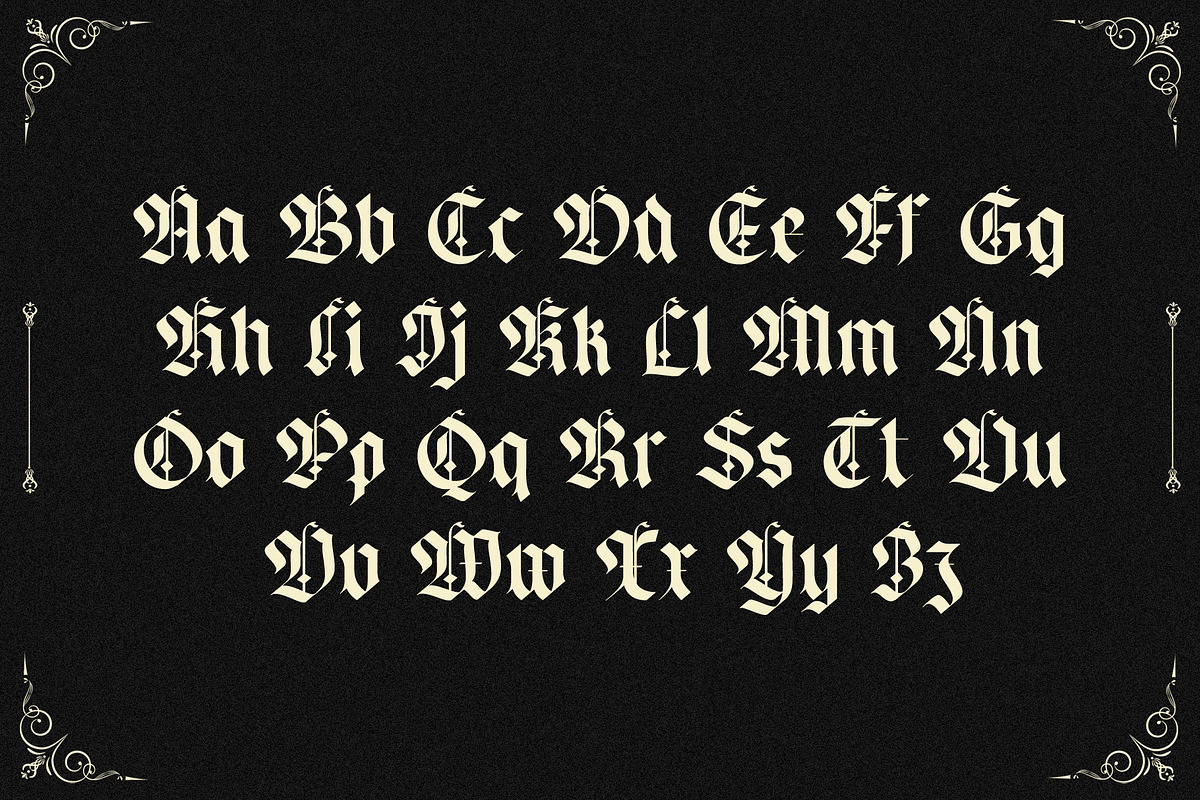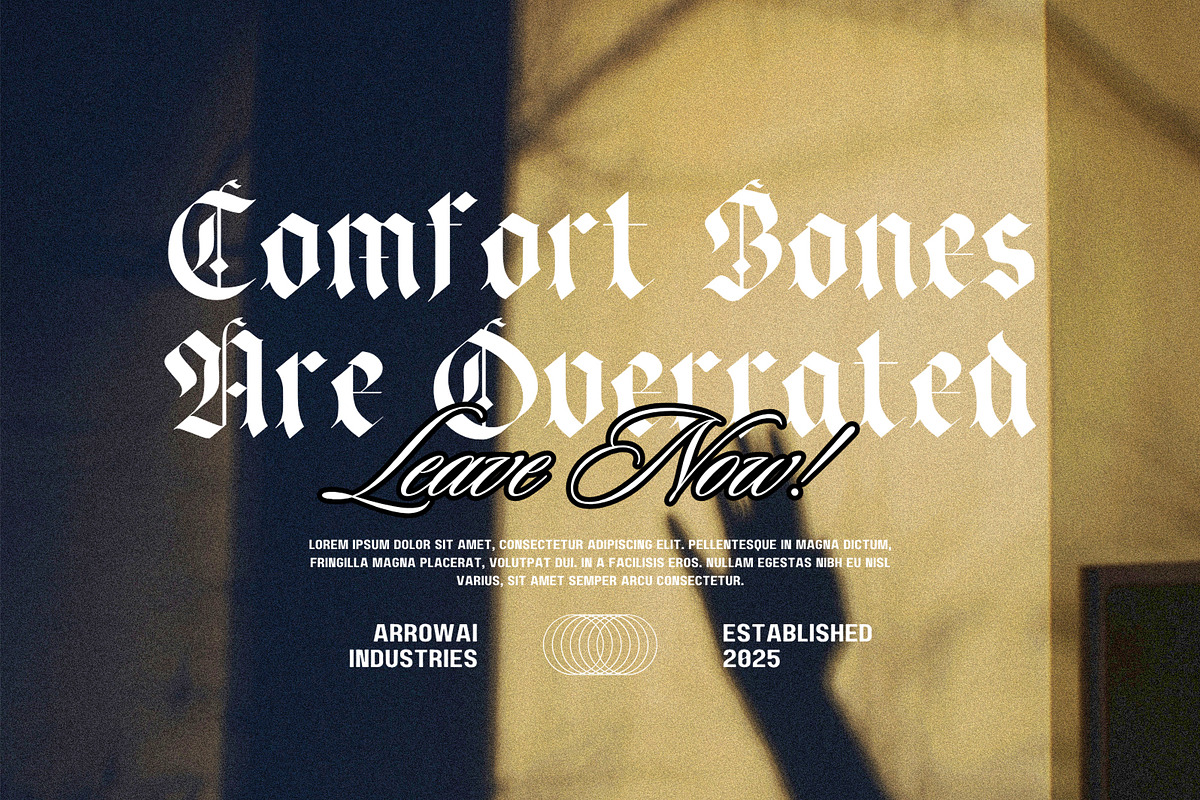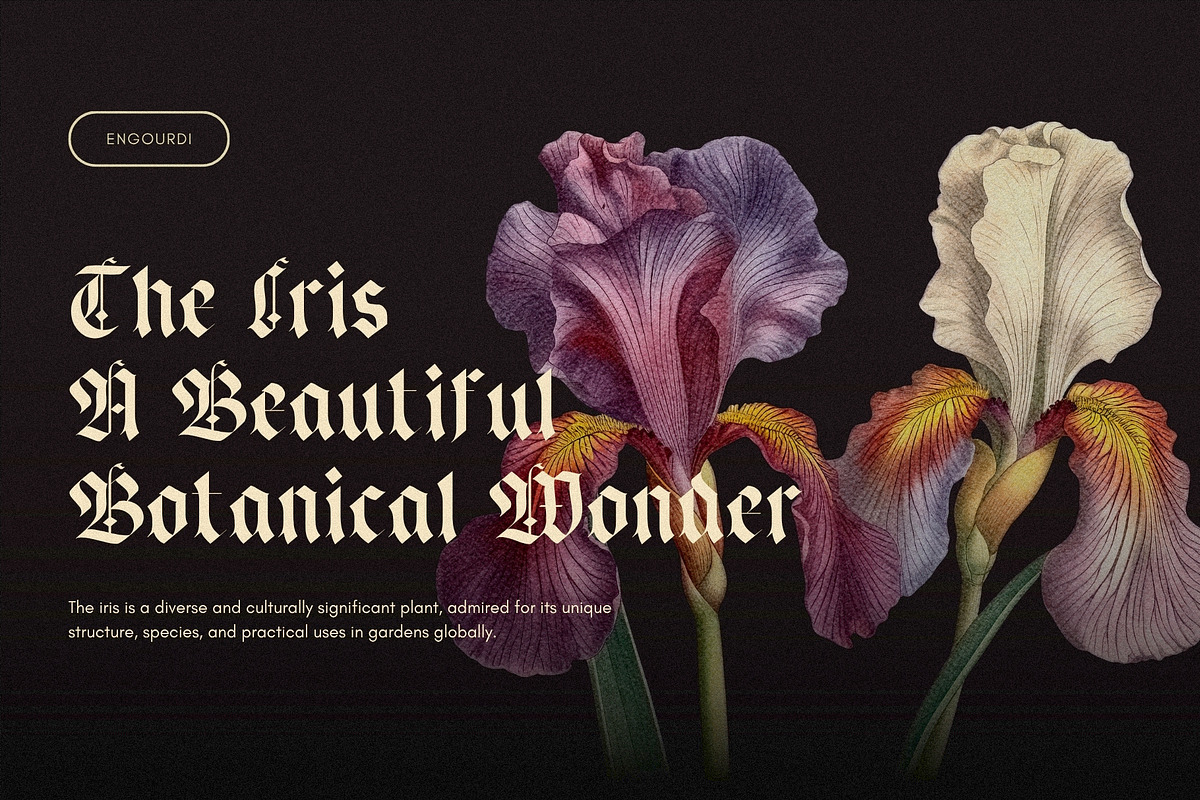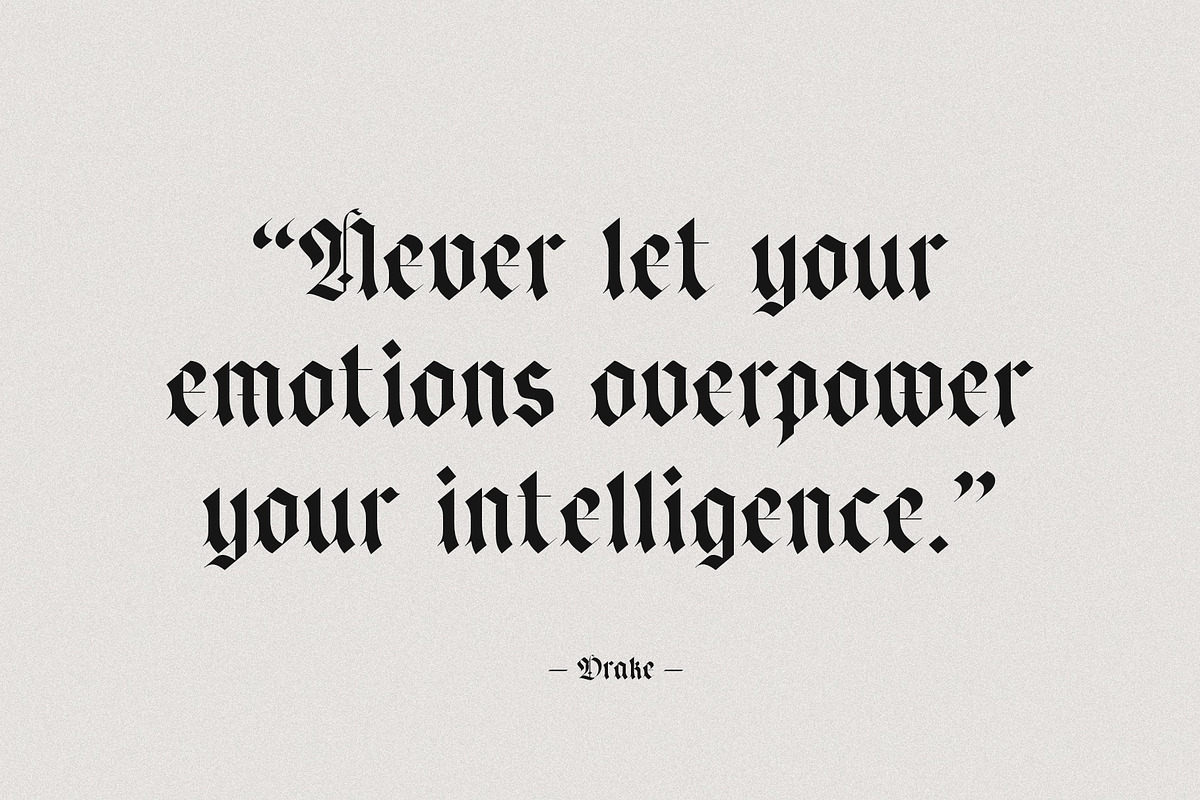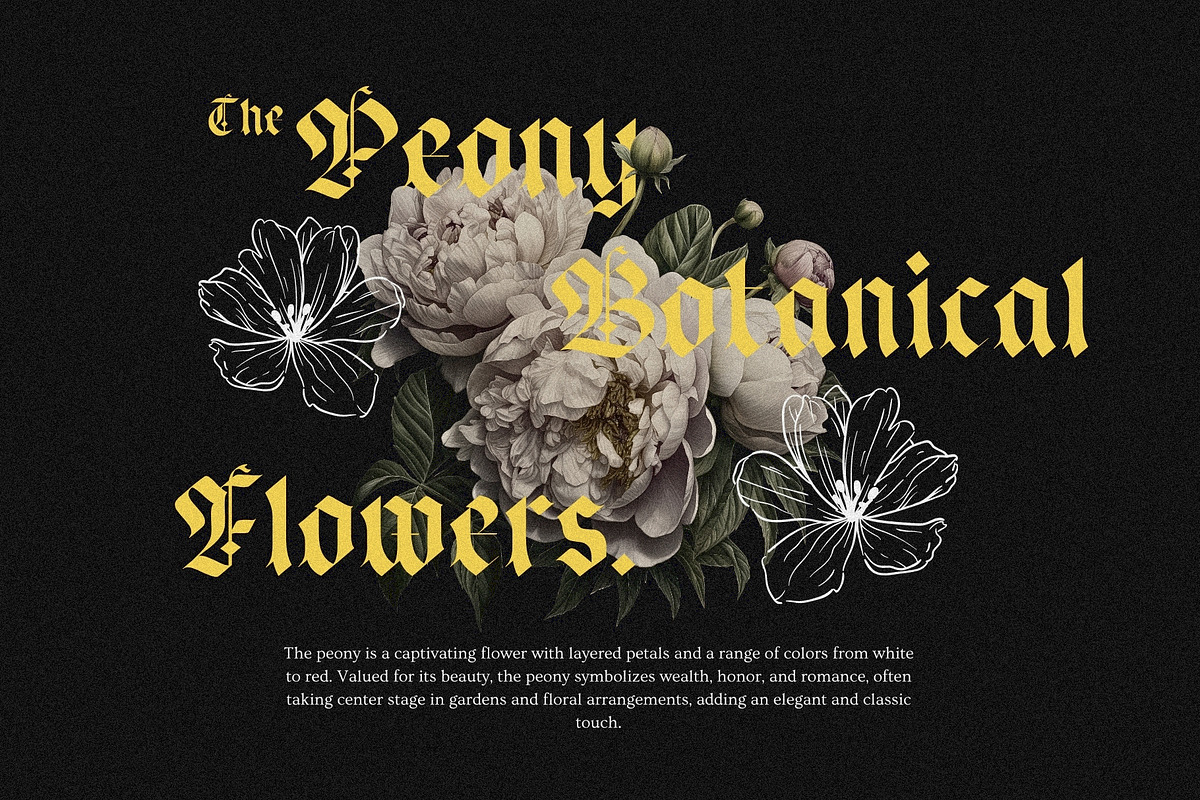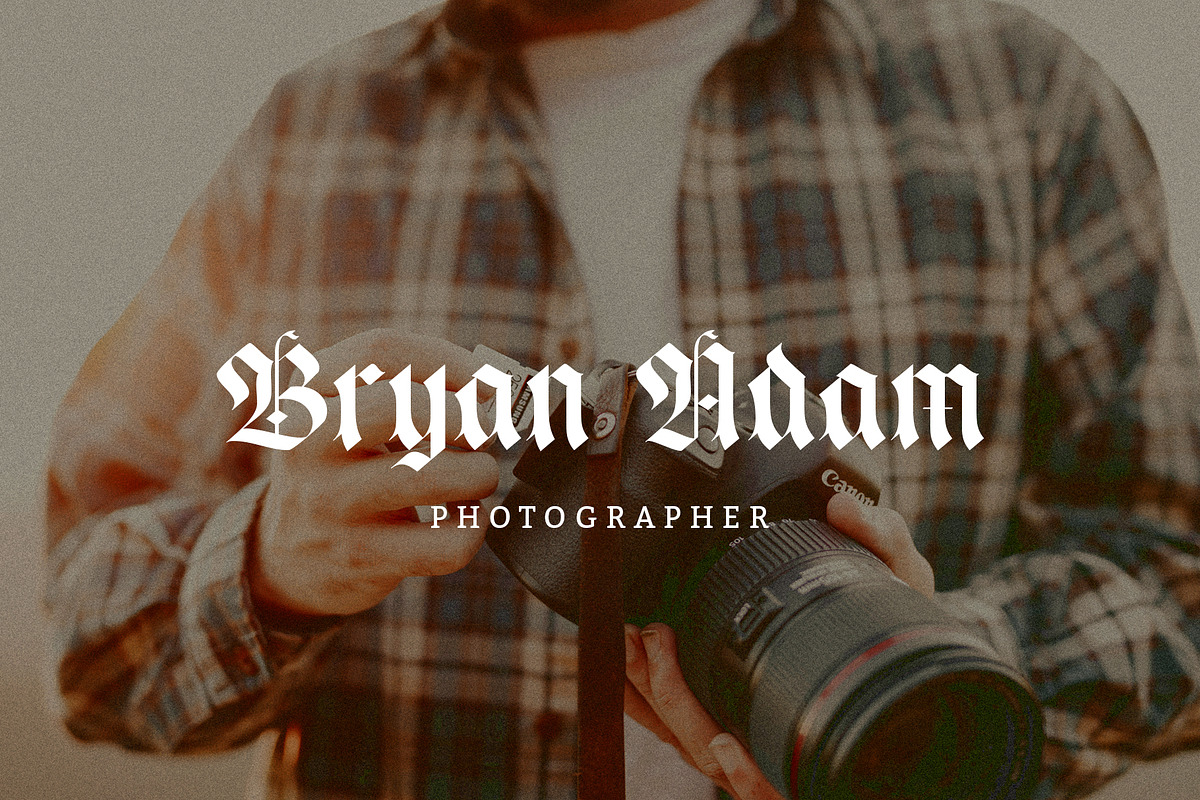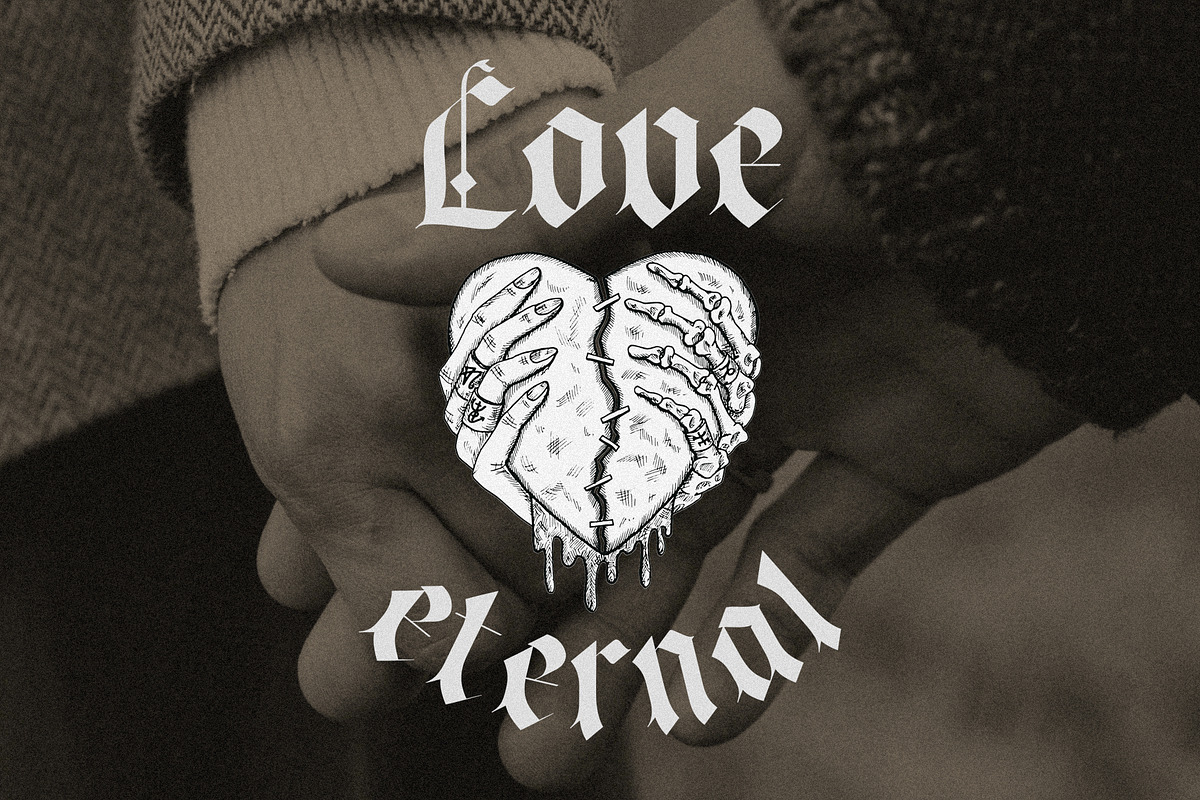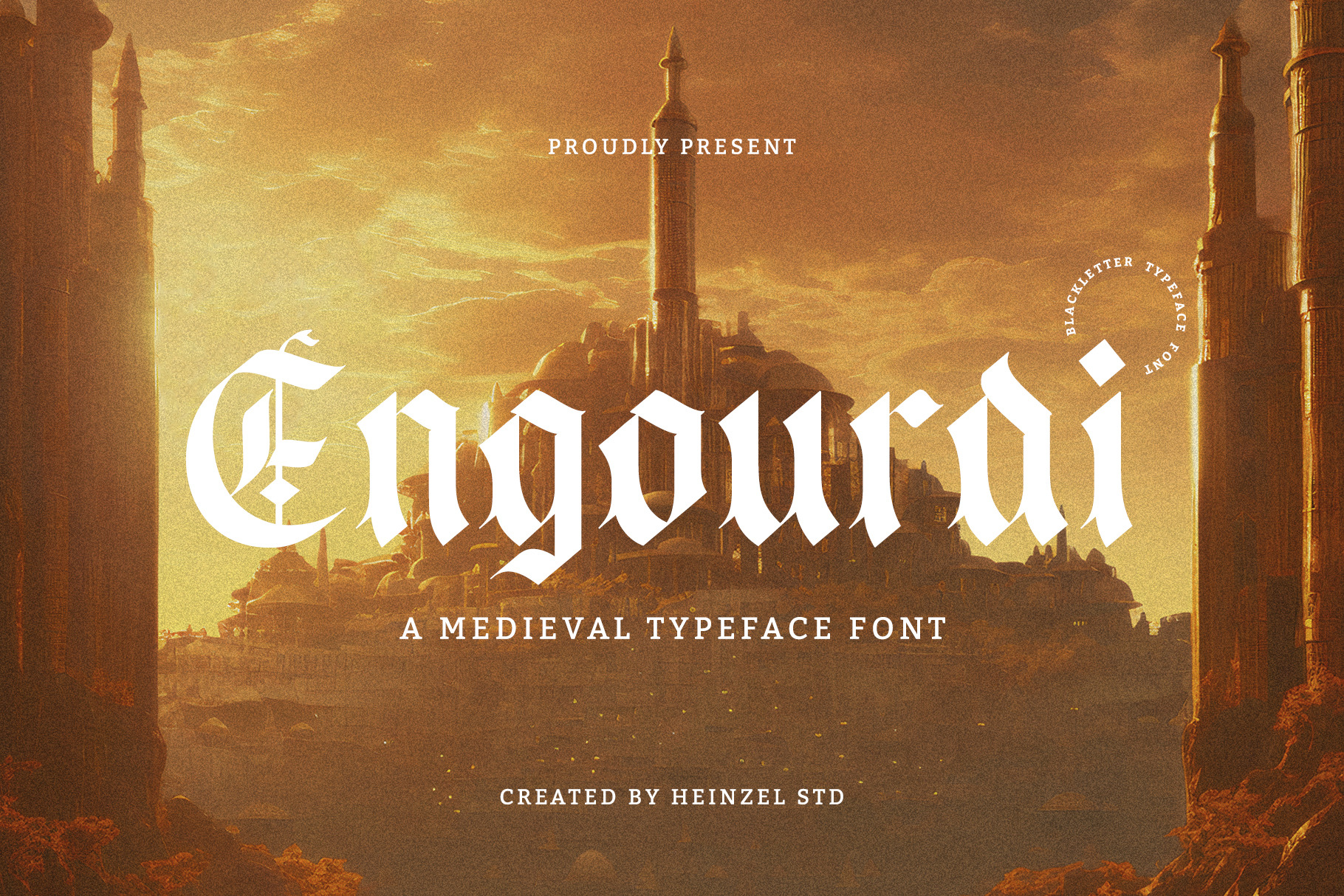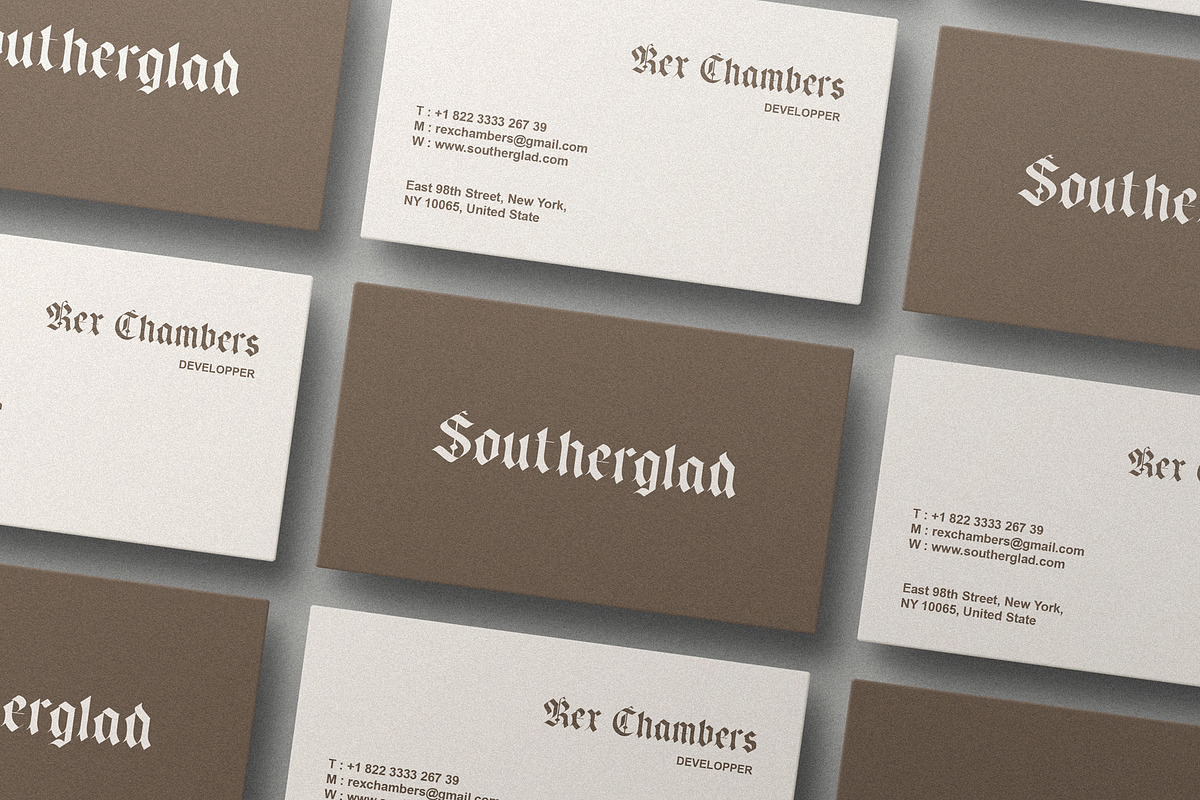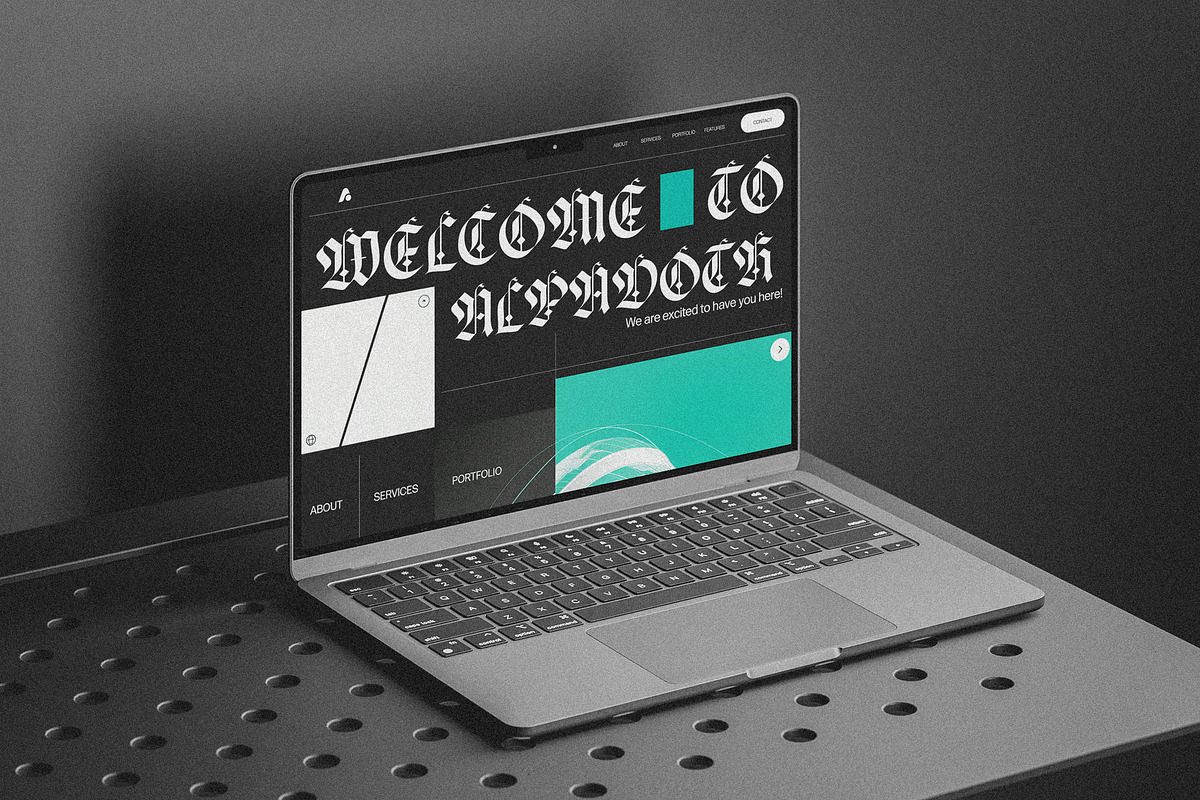
Engourdi Blackletter Font
Engourdi is a bold blackletter font inspired by classic medieval lettering. Featuring sharp edges, strong character shapes, and authentic Gothic details, this typeface brings a timeless and powerful look to any design.
Perfect for logos, branding, posters, book covers, apparel, packaging, gaming projects, and fantasy-themed artwork, Engourdi helps your designs stand out with a distinctive historical style. Its elegant yet dramatic appearance makes it suitable for both vintage and modern creative projects.
Whether you're creating a medieval-inspired brand, a dark fantasy title, or a premium editorial design, Engourdi delivers a unique blend of tradition, strength, and sophistication.